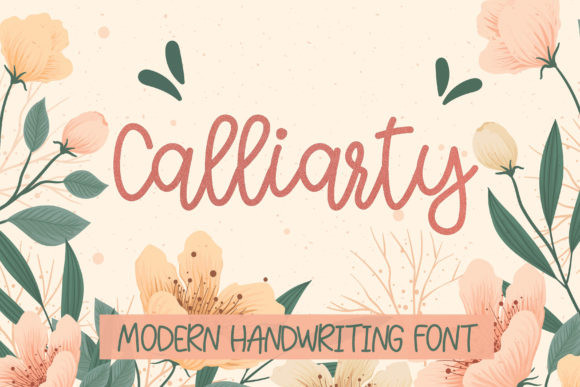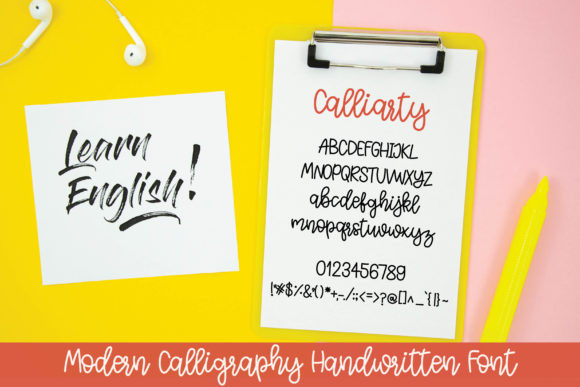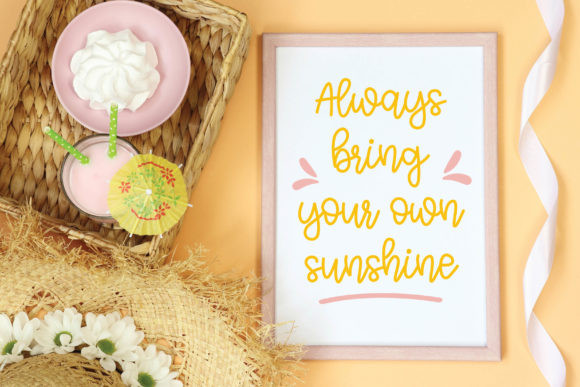
Calliarty Font
Calliarty is a sweet and cute handwritten font. It features an incredibly classy style, while still keeping a friendly feel. This font is the perfect for making gorgeous wedding invitations, beautiful stationary art, eye-catching social media posts, logos, branding, cute greeting cards and much more!